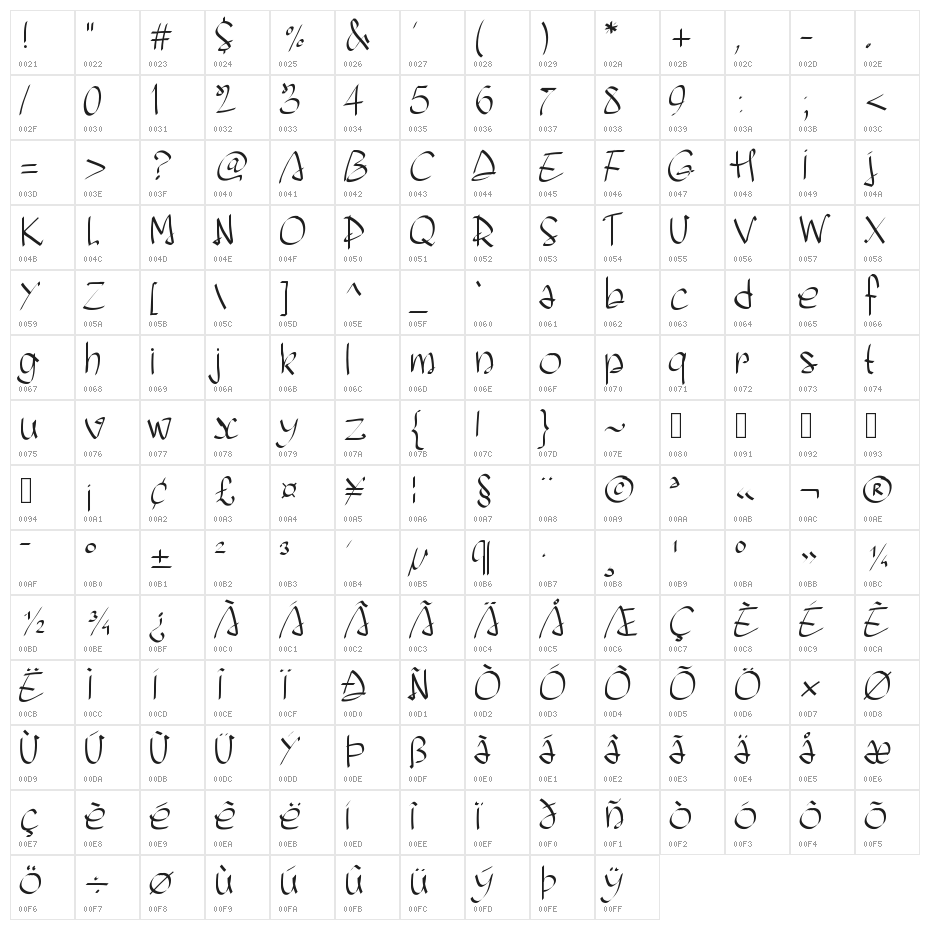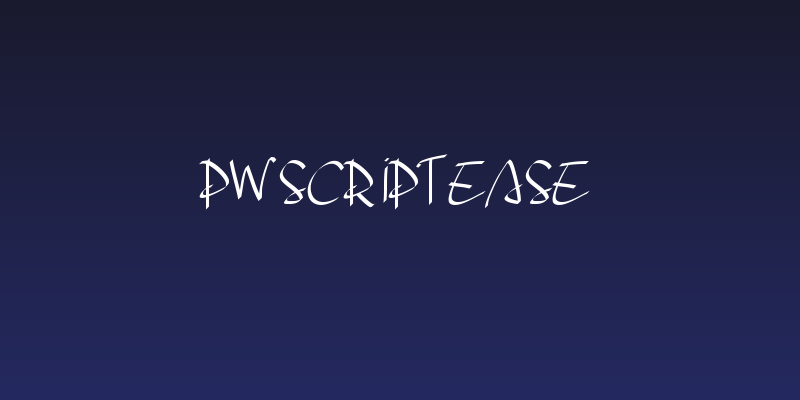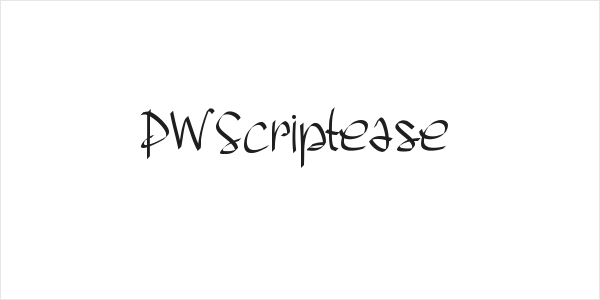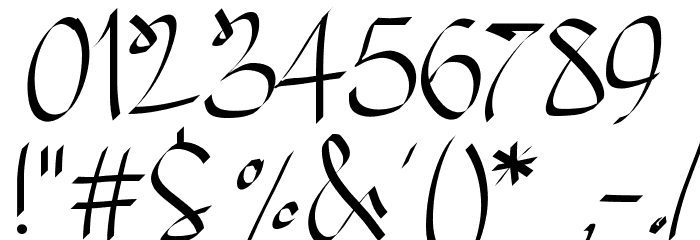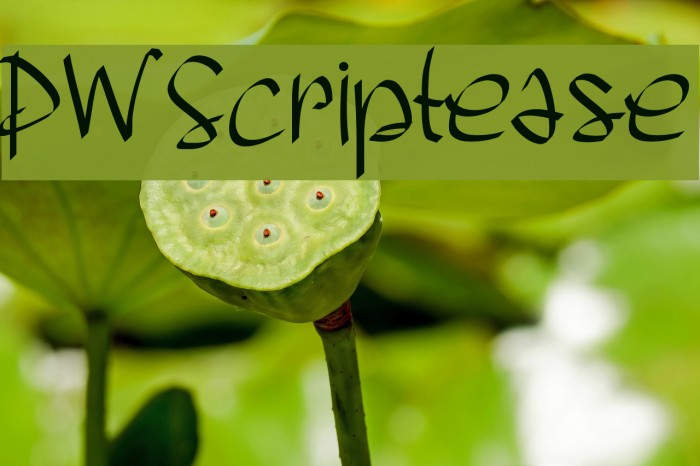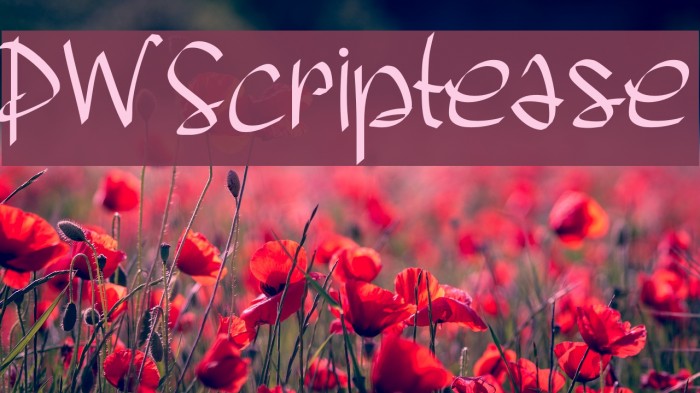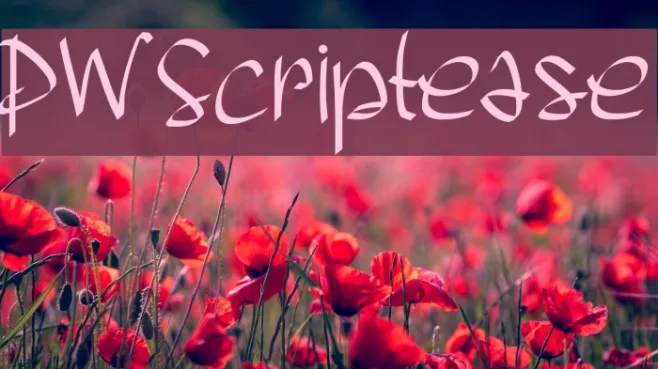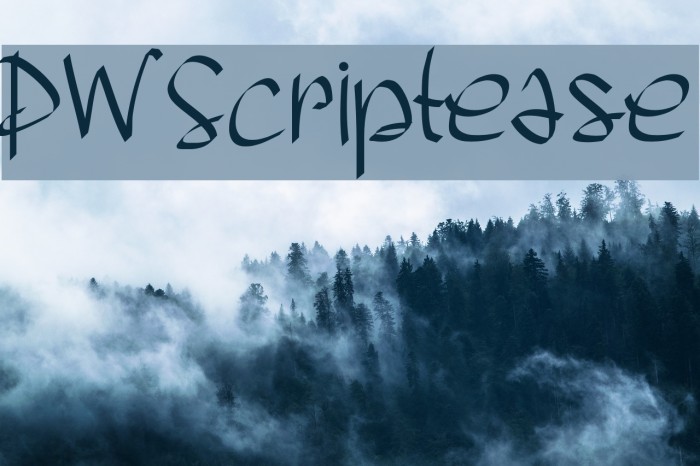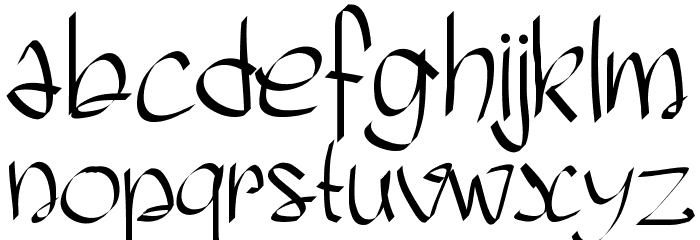
PWScriptease Font
PWScriptease Description
This font exudes a dynamic and artistic flair, characterized by its flowing, cursive style that mimics the fluidity of handwriting. The strokes are bold and expressive, with a slight slant that adds a sense of motion and elegance. Each character is distinct, with unique curves and angles that give the font a lively personality. The uppercase letters are particularly striking, with exaggerated loops and swirls, while the lowercase letters maintain a more subdued yet still playful appearance. The numbers and special characters are equally stylized, ensuring a cohesive look throughout. This font is perfect for projects that require a personal touch or a creative edge.